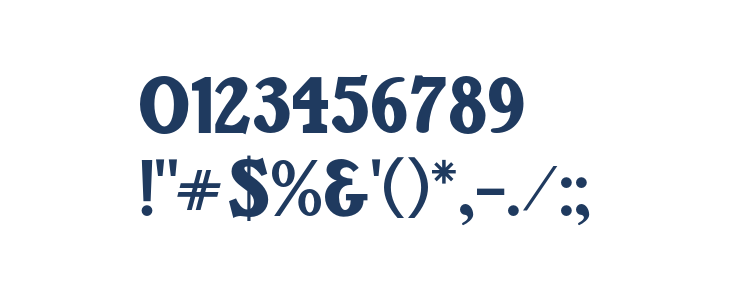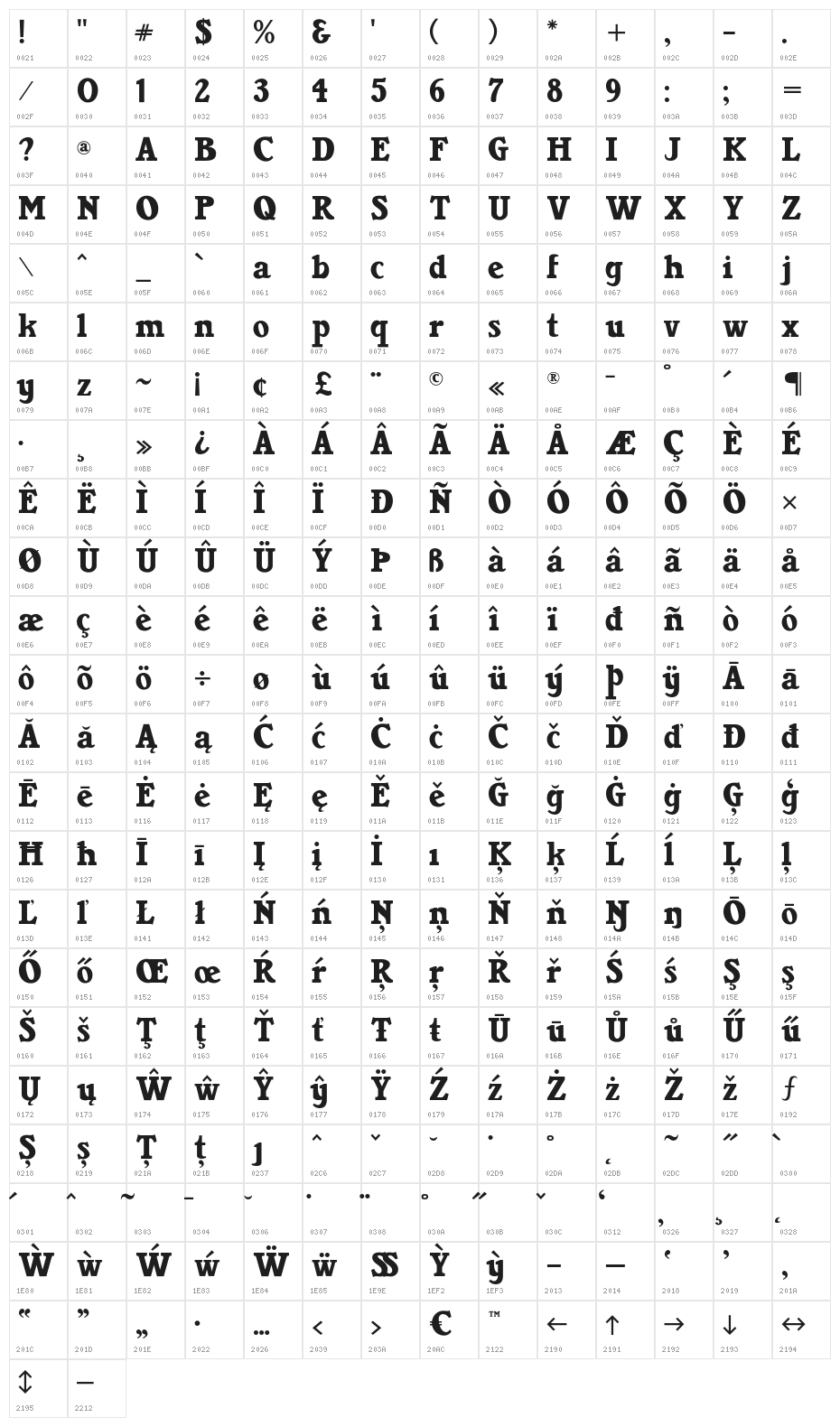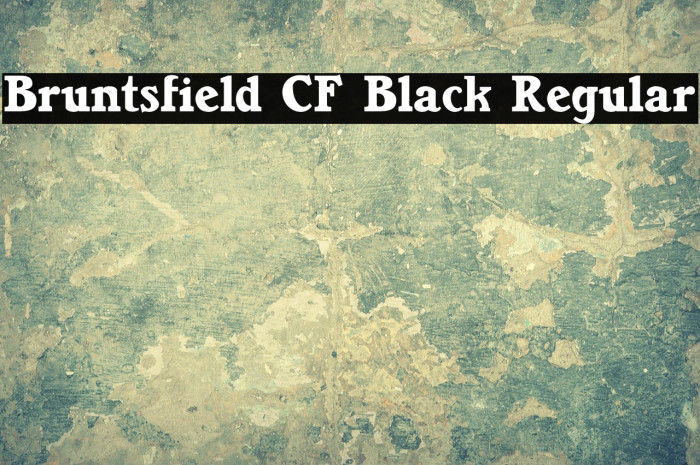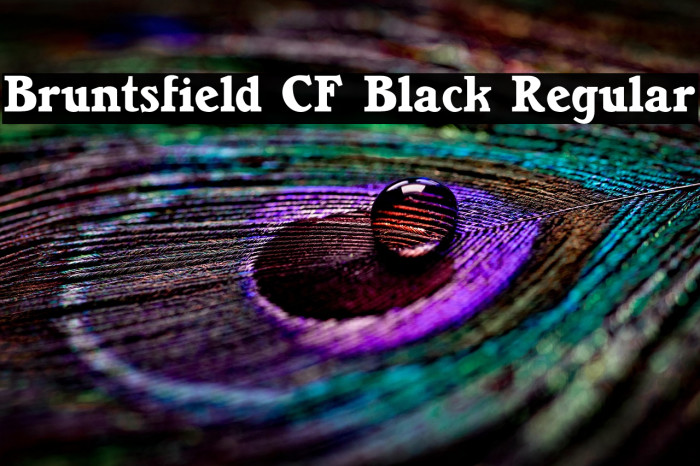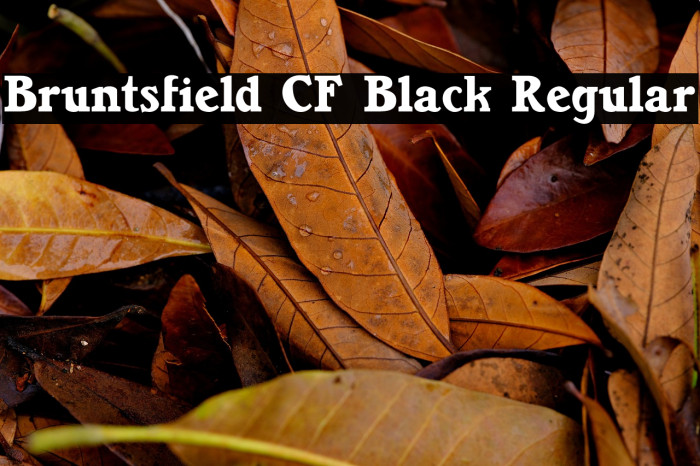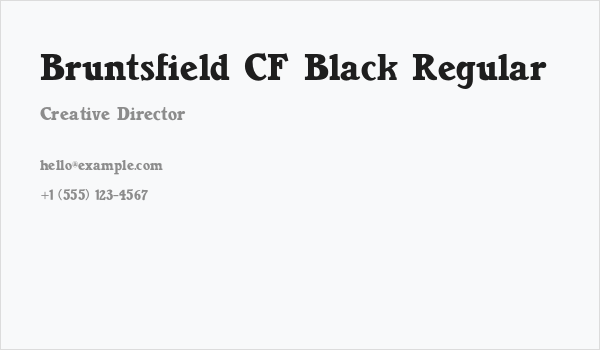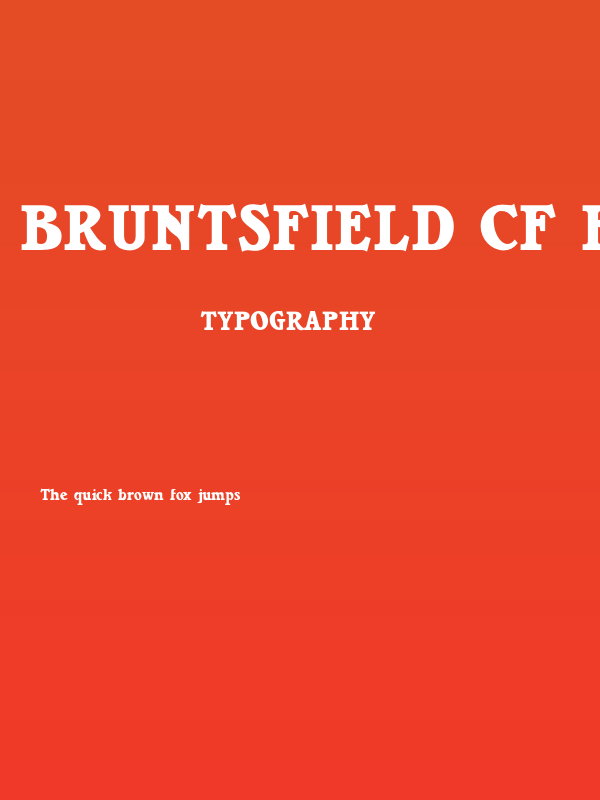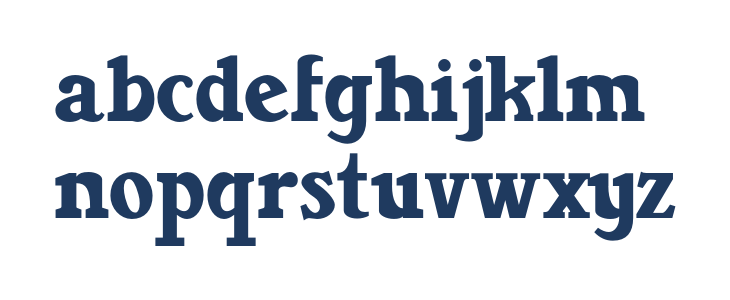
Bruntsfield CF Black Regular Font
Bruntsfield CF Black Regular Description
This font features a bold and commanding presence with its thick, sturdy strokes and pronounced serifs. The uppercase letters are robust and impactful, while the lowercase letters maintain a consistent weight, offering a harmonious balance. The numerals are equally bold, ensuring clarity and readability. Special characters are crafted with the same attention to detail, making them stand out. The overall design is reminiscent of traditional serif fonts but with a modern twist, making it suitable for a variety of applications where a strong and authoritative typeface is required.